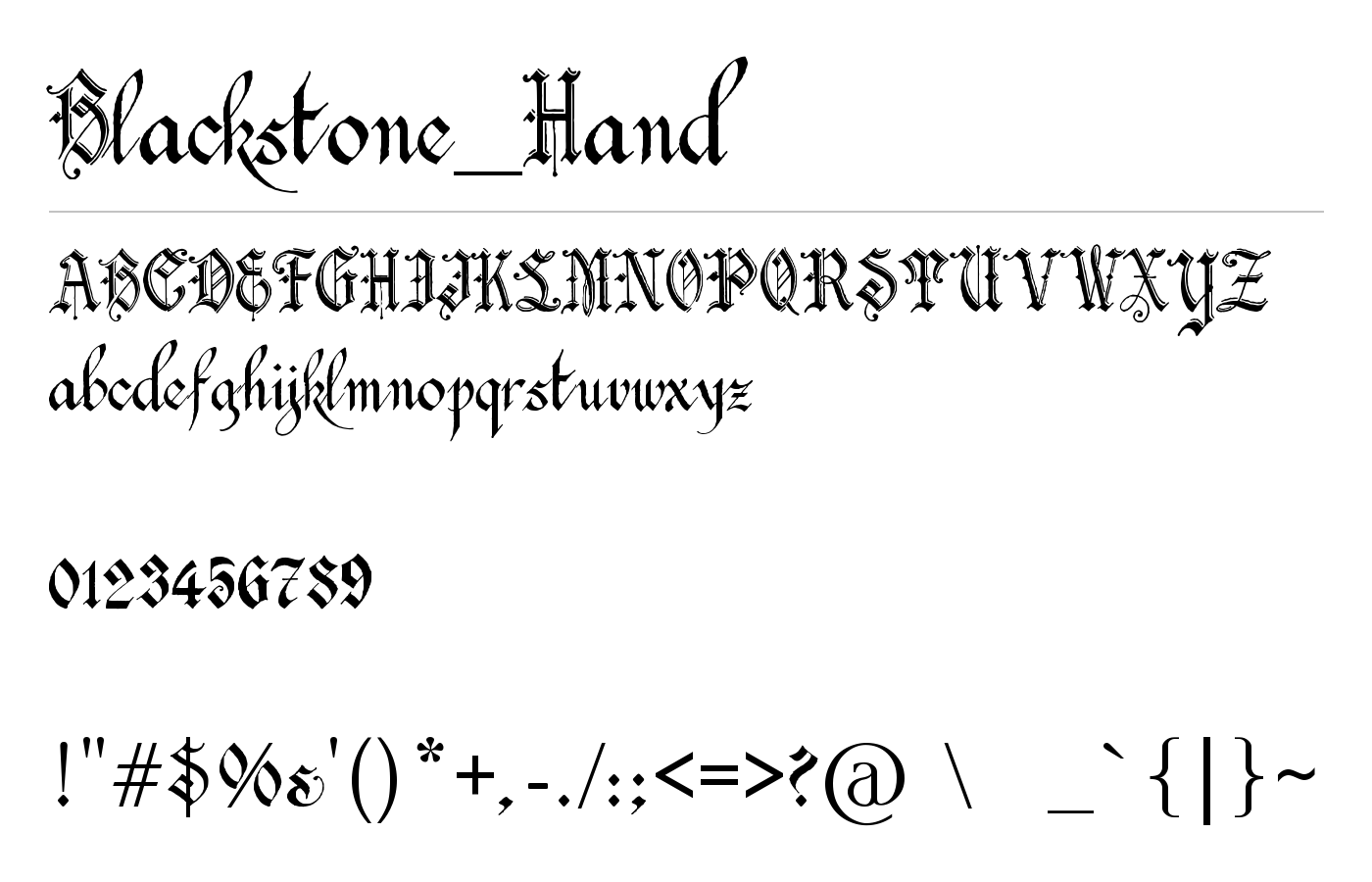
Blackstone_Hand is a decorative blackletter font that combines bold, intricate uppercase characters with elegant, flowing lowercase letters. Its sharp, angular strokes and high contrast give it a historic, Gothic feel perfect for adding a dramatic, vintage touch to logos, headlines, or themed designs. This font works best in creative projects that seek to evoke tradition, formality, or old-world craftsmanship.
Blackstone_Hand Font
About Blackstone_Hand Font
| Font family | Blackstone_Hand Font |
| Designer | Michelle Widener, J. M. Bergling |